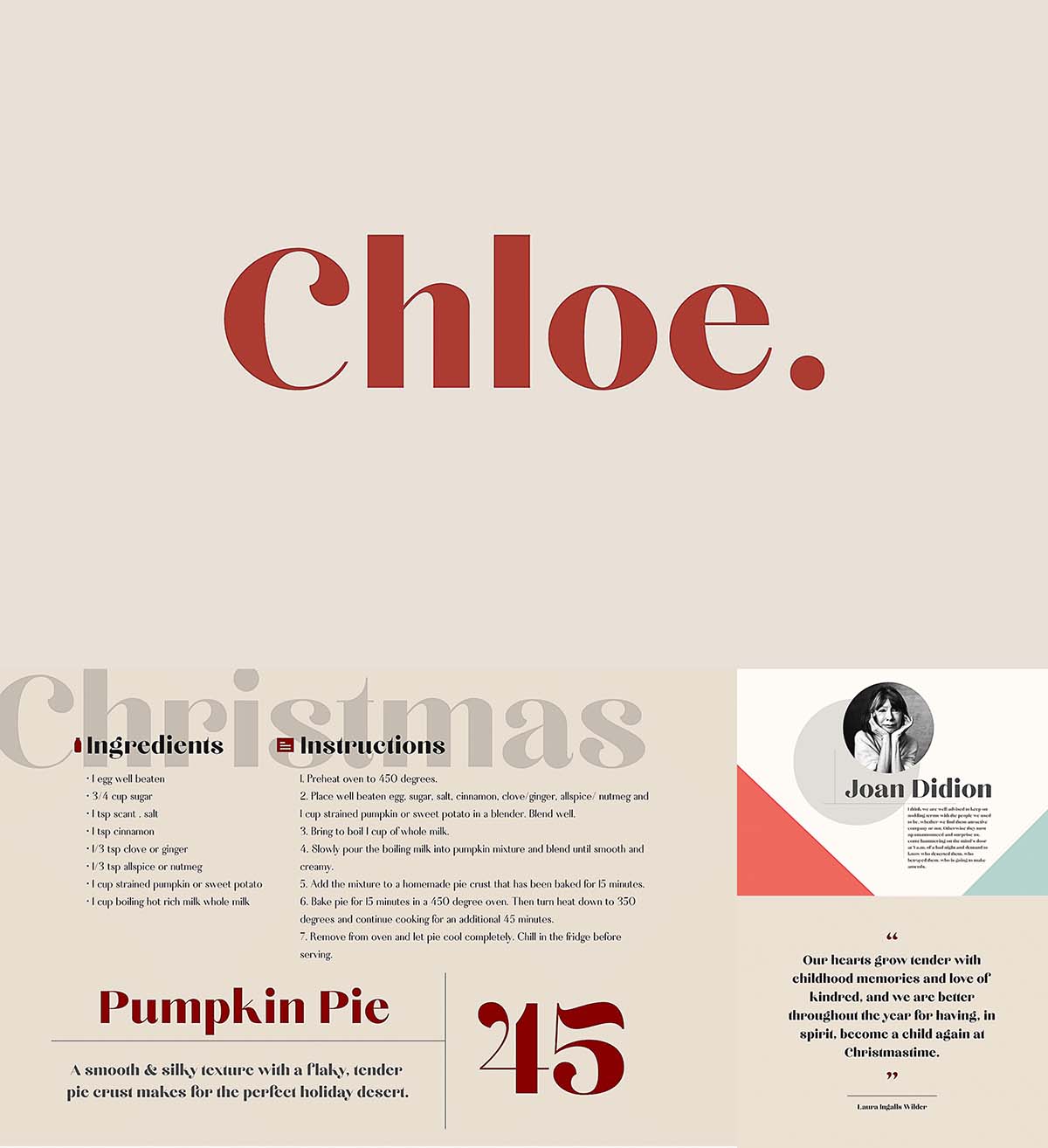
Web download chloe font for free, view sample text, rating and more on fontsgeek.com. Web chloe\’s contrasting lines and curved terminals give a sleek, elegant look to logos, holiday cards, wedding invitations, quotes, advertisements, and more. Click to find the best 2 free fonts in the chloe style.
By fontspace december 14, 2021. Chloe font created bold, gorgeous headlines and elegant designs with a vintage flair. However, you need to contact the author for commercial use or for any support.
You Can Use The Chloe To Create Interesting Designs, Covers, Shop And Store Name And Logos.
Chloe’s contrasting lines and curved terminals give a sleek,. Click to find the best 2 free fonts in the chloe style. Web be aware that the chloe font is free for personal knowledge and use only.
Web looking for chloe fonts? Web the signarita chloe font has been downloaded 114,765 times. Web chloe\’s contrasting lines and curved terminals give a sleek, elegant look to logos, holiday cards, wedding invitations, quotes, advertisements, and more.